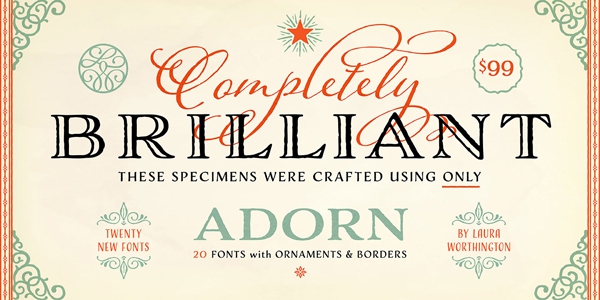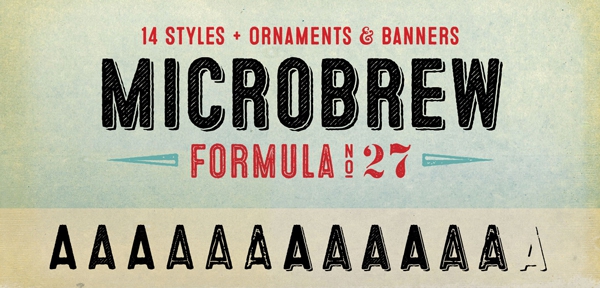
TypeTalk: Trending Fonts
Looking back at the past year’s most popular font offerings is a good way to view a typographic moment in time, a snapshot of typography trends. A look at the best sellers reported by foundries and font resellers reinforces, for the most part, what we can observe in printed and digital media all around us. Even though the sources we sampled vary in size from the largest reseller to an independent one-man shop, the most popular fonts of 2014 fall into common categories: organic scripts and handwriting fonts, rustic and distressed fonts, expansive geometric sans families, with a sprinkling of slabs and a dash of serif designs.
Here is a sampling of some of the best selling fonts from 2014: not too many surprises or totally new ideas, just the fleshing out and fine-tuning of typographic themes that have been around for the last several years.
Myfonts.com
This mega font reseller has a friendly, inviting, easy-to-navigate web site. Their newsletters are visually exciting, with lots of interesting background information on the typeface and the designer. Every year they put out an annual list of their Most Popular Fonts, which is a typographic feast for the eyes.
Their popular typefaces from 2014 seemed to come from two opposite directions: either clean and simple, or informal and festive. Clearly rustic, distressed fonts are still hot. They can be seen everywhere you turn, including ads, titles, posters, menus, and branding, in print and on the web. A number of them are best sellers for myfonts.com. Handwriting typestyles, both informal and stylized, are also still selling well. The expanded character set of OpenType fonts, which allows the inclusion of numerous alternate characters, is a boon to these kinds of fonts, as it allows for the customization of each setting, and provides different glyphs to create variety, mimicking a natural handwriting.
The six typefaces shown below—Brandon Printed, Adorn, Selfie, Brix Sans, Microbrew, and Nexa Rust—are a selected from their list.
Brandon Printed is an all cap design with an eroded, printed look. It comes in several different styles with four variations for each letter, as well as fun extras including arrows, catchwords, stars, and emblems.
Laura Worthington’s Adorn is a large family of lettering styles that are distinctive, yet work together harmoniously. It includes seven display fonts, four script designs, monograms, ornaments, illustrations, banners, frames, and catchwords.
Selfie is a swirly, rhythmic connected script based in vintage signage seen in Buenos Aires, Argentina. Many different effects are possible with this monoline, geometric script.
Brix Sans is a crisp, legible typeface family great for magazines, newspapers, charts, graphs and digital interfaces. It consists of six weights with matching italics, and is a companion to Brix Slab.
Note that both Microbrew and Nexa (shown below) appeared on both the fonts.com and myfonts.com best sellers list.
Microbrew is a very cool family that comes in 14 styles, all with different textures and styles of distressing. This all-cap retro family falls somewhere between wood type poster style and vintage letterpress, and comes with banners, ornaments, and symbols.
Nexa Rust is a multi-faceted font system consisting of Sans, Slab, Script, Handmade (two hand printing styles) and Extras, which include ornaments, dingbats, and catchwords. Every style is distinctive, yet works well with others in this warm family that can be used to create dozens of different looks.
Fonts.com
This monster reseller with over 150,000 fonts from hundreds of designers and foundries has a very drab, utilitarian list of their best sellers, which appears to be hidden away on their site. They seem to want to pick and choose the fonts they want to market (which is done with more style and flair), and not just leave it up to the numbers, which is probably why this list is hard to find. Nonetheless, it still tells us a lot about what is hot (and what is not) from one of the most expansive libraries around. The focus of Fonts.com, owned by Monotype, is often on revised, reworked, and expanded classic type families, such as DIN Next Slab, one of the hottest new type families this year. The others I’ve shown below, such as Canberra, Sanelma, and Lulo Clean, all represent totally different styles, which one would expect from a foundry with classic roots, yet with an open mind towards what their customers want.
DIN Next Slab is a variation of the very popular DIN Next type family. The lighter weights of this industrial strength design work well for text, while the heavier weights make a powerful statement for display usages. Read more about this typeface in Introducing DIN Next Slab.
Canberra is a clean-looking, low contrast serif that looks friendly yet professional. Its extreme legibility makes it great for small type on maps and charts, as well as book covers and signage.
Sanelma is a versatile brush script inspired by hot rod lettering and sign painting. It includes two different styles of end swashes, swash caps, small caps, lots of alternate characters as well as an underline option.
Lulo Clean is the non-distressed version of Lulo, both of which have five stackable layers. Different effects can be created by taking the time to play with the layers and color of these all-cap designs.
House Industries
House Industries typefaces have style and flava’. Whether it be scrawly designs, grungy graffiti, funky 50s and psychedelic 60s typestyles, or a more serious design such as the insanely popular Neutraface superfamily, everything they do is done with an enormous degree of skill, good taste, appropriate humor, and an understanding of how to turn every concept into a well executed, tasteful, and original typeface.